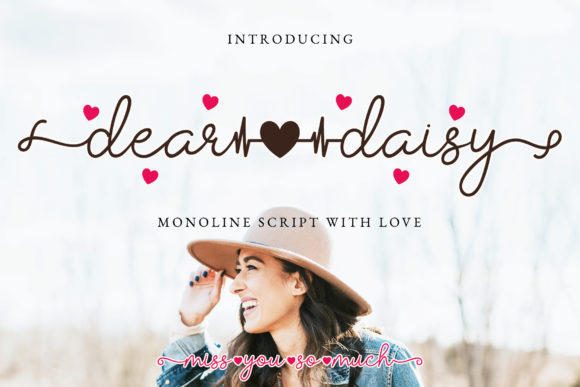
Unleash the allure of handwritten artistry with Dear Daisy, a captivating script font that will transform your creative endeavors into masterpieces. Designed by the skilled hands of airotype, this font is a testament to the beauty of individuality and the power of self-expression.
Immerse yourself in the world of Dear Daisy, where each letter dances with grace and fluidity, evoking a sense of timeless elegance. This font is not just a collection of characters; it's a symphony of lines and curves that harmonize together to create a visual tapestry that is both captivating and inviting.
Whether you're a seasoned designer or just starting your creative journey, Dear Daisy is the perfect companion for your artistic pursuits. Its versatility knows no bounds, lending itself effortlessly to a wide range of projects, from logos and branding to social media graphics and handcrafted DIY creations.
With Dear Daisy at your fingertips, you'll discover a new level of creative freedom. Its charming and elegant style will elevate your designs, adding a touch of sophistication and personality. Let your imagination soar as you explore the endless possibilities that await you with this captivating script font.
Join the growing community of creatives who have embraced the magic of Dear Daisy. Experience the joy of crafting logos that exude elegance, branding that resonates with authenticity, and social media graphics that captivate your audience. Let Dear Daisy be your muse as you embark on a journey of creative exploration and self-expression.